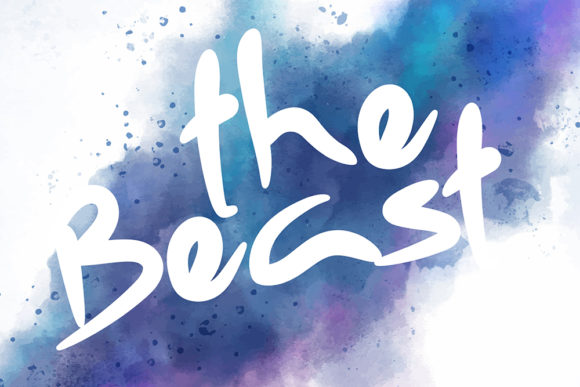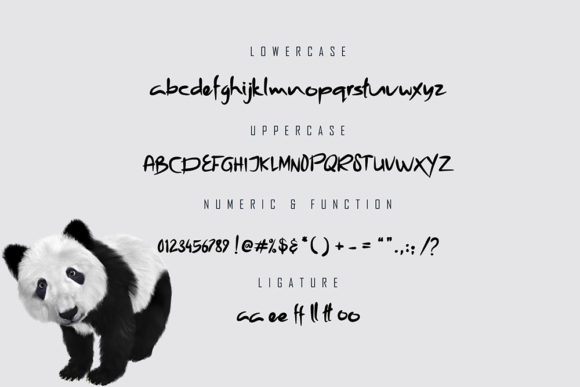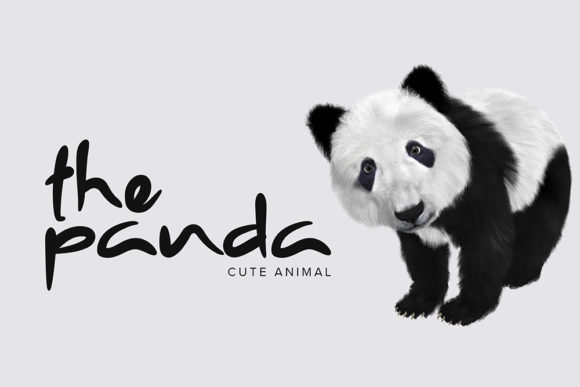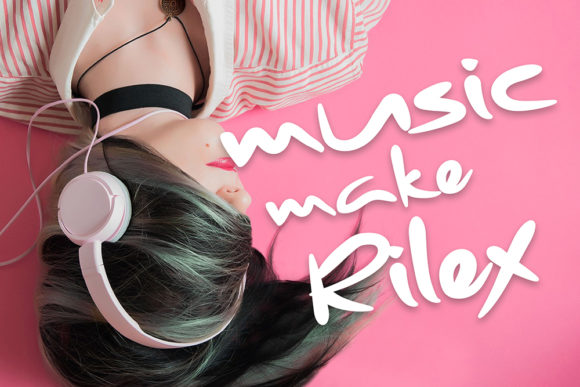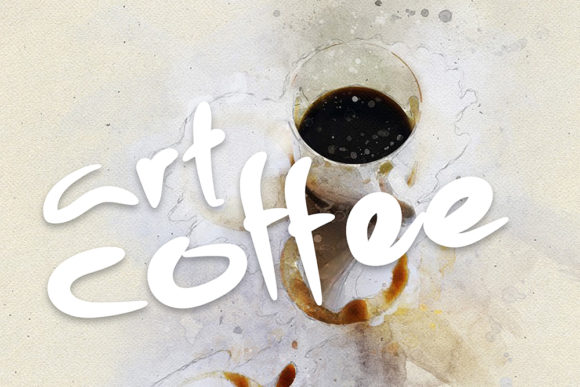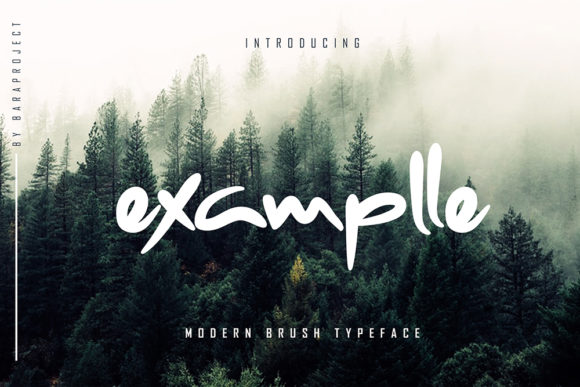
Introducing Example Font: Elevate Your Designs with The Horizontal Script Font
Are you tired of using the same old fonts in your design projects? Look no further! The Horizontal is a stunning and fun script font that can instantly transform your designs into standouts. This gorgeous font is perfect for a wide range of applications, from comics and posters to banners and more. In this article, we’ll dive into the features and benefits of The Horizontal script font, and explore how it can take your designs to the next level.
The Horizontal Script Font: A Designer’s Dream
The Horizontal script font is a unique and creative typeface that is sure to grab attention. Its elegant and flowing lines make it perfect for designs that require a touch of sophistication and whimsy. Whether you’re working on a comic book, poster, or banner, this font is sure to add a pop of personality to your project. With its gorgeous and fun design, The Horizontal script font is the perfect choice for designers who want to create something truly special.
Key Features of The Horizontal Script Font
- Unique and Creative Design: The Horizontal script font features a one-of-a-kind design that is sure to set your designs apart from the rest.
- Elegant and Flowing Lines: The font’s elegant and flowing lines make it perfect for designs that require a touch of sophistication and whimsy.
- Highly Versatile: The Horizontal script font can be used for a wide range of applications, from comics and posters to banners and more.
- Easy to Read: Despite its creative and unique design, The Horizontal script font is still highly legible and easy to read.
Perfect for Comics, Posters, Banners, and More
The Horizontal script font is perfect for a wide range of design projects, including:
- Comics: Add a touch of personality and whimsy to your comic book designs with The Horizontal script font.
- Posters: Create eye-catching posters that grab attention with this gorgeous and fun script font.
- Banners: Add a pop of personality to your banners with The Horizontal script font.
- Signs: Create signs that stand out from the rest with this unique and creative typeface.
- Logos: Use The Horizontal script font to create a unique and memorable logo for your brand.
Why Choose The Horizontal Script Font?
There are many script fonts on the market, but The Horizontal stands out from the rest. Here are just a few reasons why:
- Unique Design: The Horizontal script font features a unique and creative design that is sure to set your designs apart from the rest.
- High-Quality: This font is designed with high-quality and legibility in mind, making it perfect for a wide range of applications.
Tips for Using The Horizontal Script Font
Here are a few tips for using The Horizontal script font in your designs:
- Use it as a Headline Font: The Horizontal script font is perfect for use as a headline font, adding a touch of personality and whimsy to your designs.
- Pair it with a Serif Font: Pair The Horizontal script font with a serif font for a classic and elegant look.
- Experiment with Colors: The Horizontal script font looks great in a wide range of colors, so don’t be afraid to experiment and find the perfect color for your design.
| Author | Bartype |
The Horizontal script font is a gorgeous and fun typeface that can instantly elevate your designs into standouts. With its unique and creative design, elegant and flowing lines, and high versatility, this font is perfect for a wide range of applications. Whether you’re working on a comic book, poster, banner, or more, The Horizontal script font is sure to add a pop of personality and whimsy to your project. So why wait? Download The Horizontal script font today and take your designs to the next level!